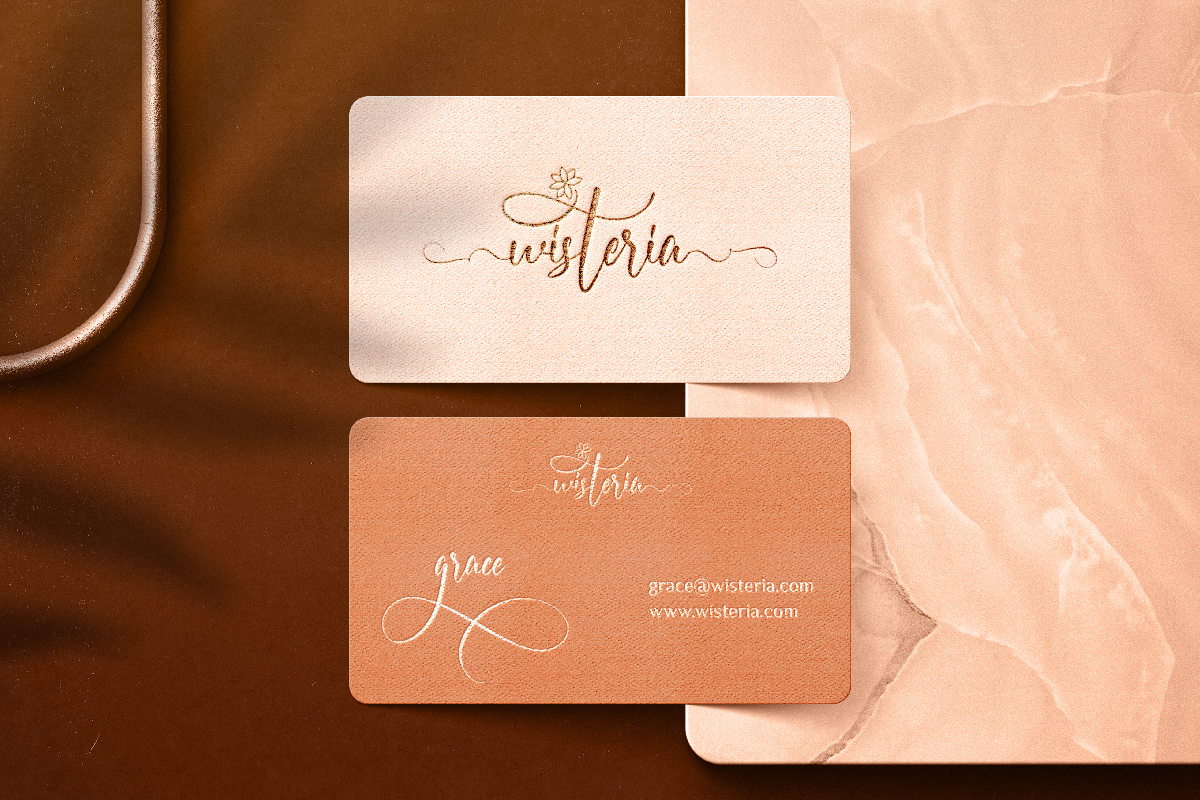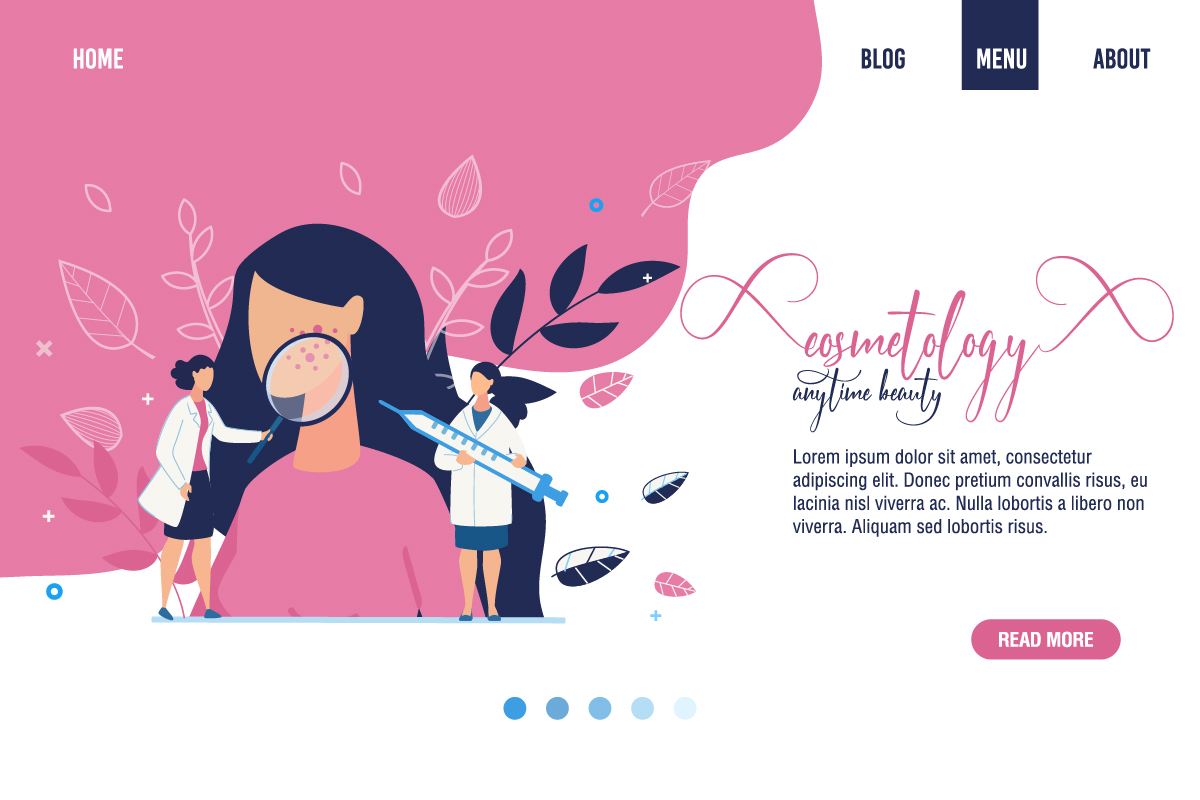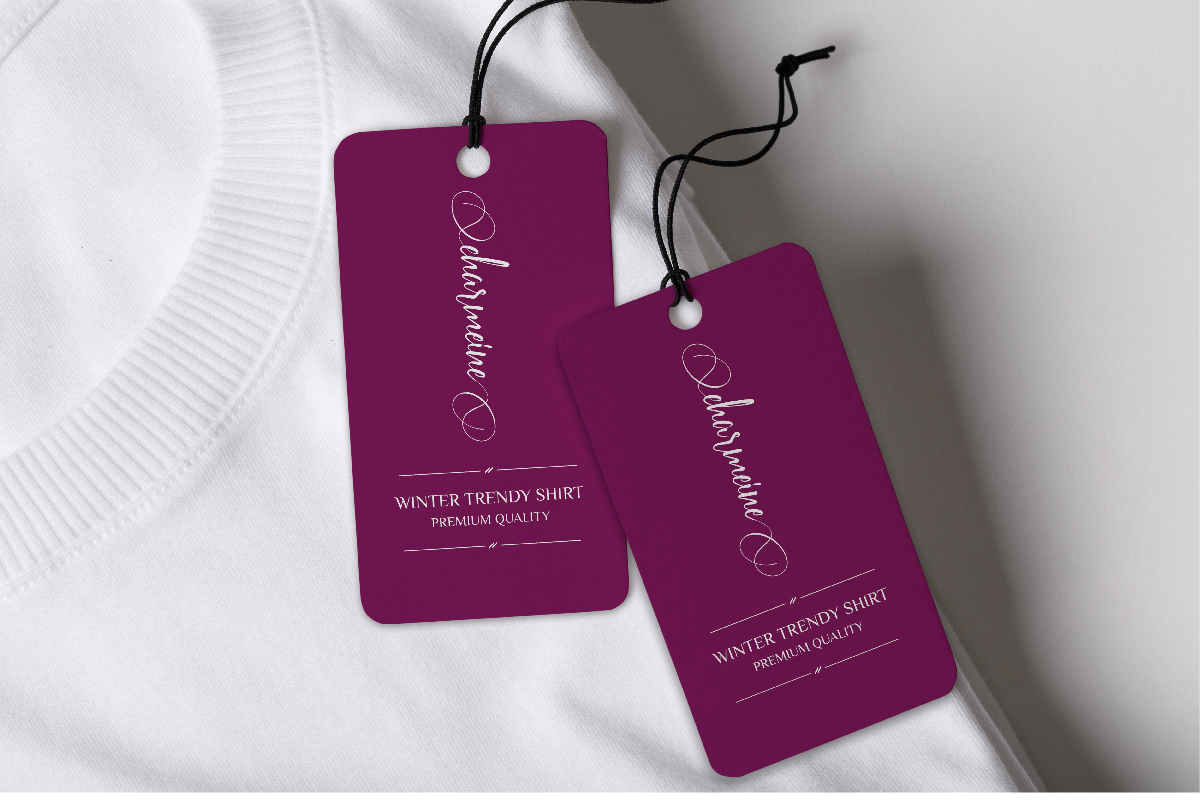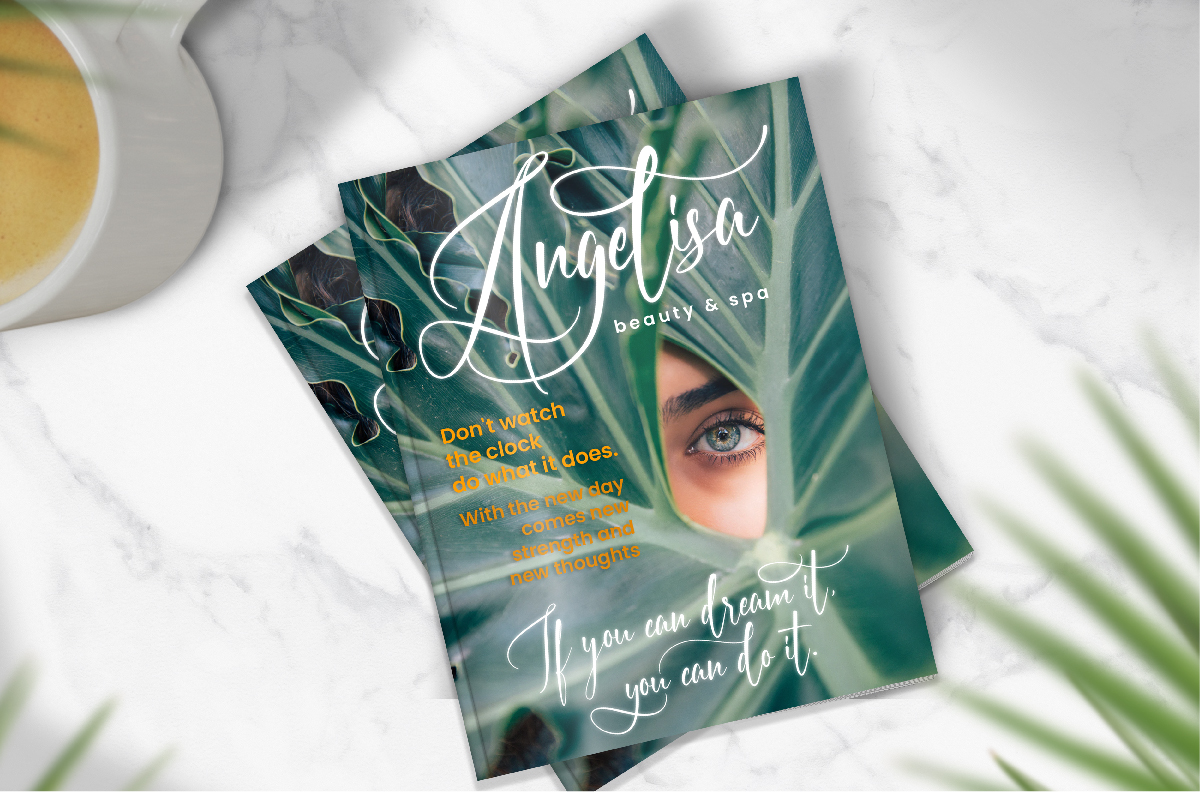
Fourth Angel Calligraphy Font
This is a stunning calligraphy font. It has unique looks that are elegant, luxurious, lettering and sophisticated Calligraphic style.